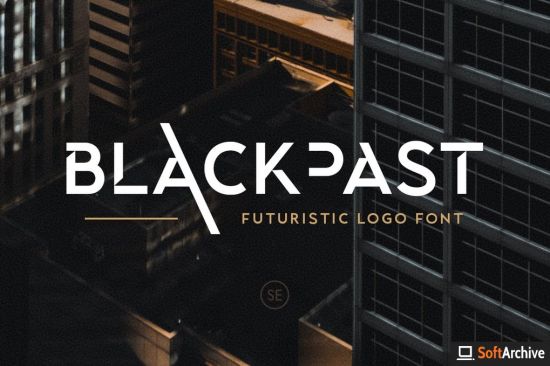
DesignOptimal - Blackpast - Futuristic Logo Font
DesignOptimal.com - Blackpast - Futuristic Logo Font
Introducing, Blackpast, a futuristic logo font with alternates!